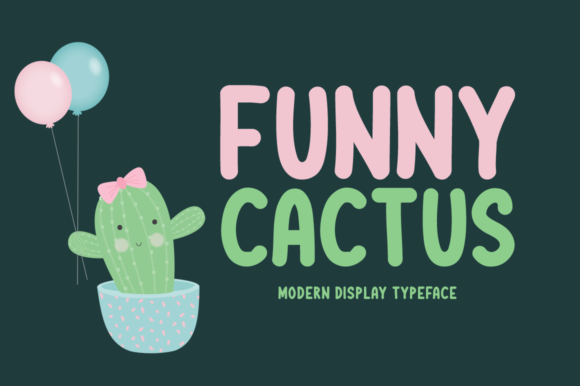
Embark on a delightful typographic journey with Funny Catcus Font, a display font exuding charm and uniqueness. Immerse yourself in the world of botanical beauty, where nature's allure meets the digital realm. This font is a testament to the harmony between the organic and the modern, seamlessly blending the beauty of nature with the precision of digital artistry.
Funny Catcus Font is not just a collection of letters and symbols; it's an invitation to let your creativity bloom. Designed by Shattered Notion, this font is a masterpiece, meticulously crafted to capture the essence of nature's whimsy and charm. Its botanical motifs dance across your designs, adding a touch of playfulness and elegance wherever they appear.
With Funny Catcus Font, you'll embark on a design adventure where imagination knows no bounds. Whether you're crafting logos, branding materials, or enchanting invitations, this font will elevate your creations to new heights. Its playful nature lends itself perfectly to children's books, apparel designs, and greeting cards, while its versatility extends to posters, packaging, and web design.
Dive into the realm of Funny Catcus Font and discover a world where nature and design intertwine. Let its botanical charm enchant your audience and create designs that speak to their hearts. With its enchanting beauty and endless possibilities, Funny Catcus Font is the perfect choice for designers seeking a touch of magic in their work. So, embrace the allure of the natural world and let Funny Catcus Font guide your creative vision to new heights!